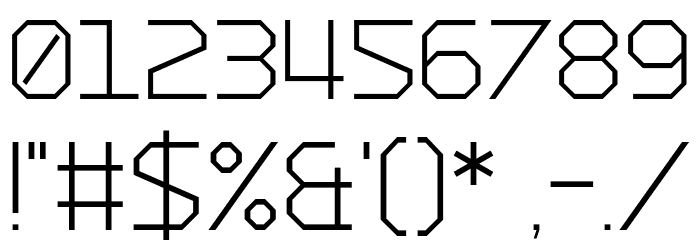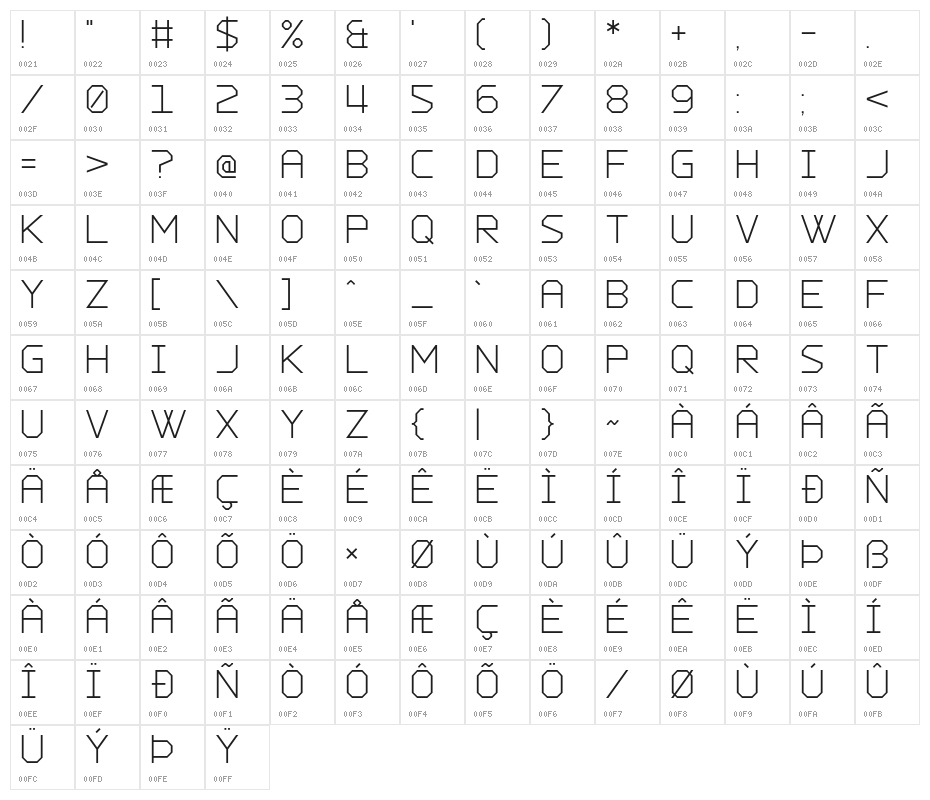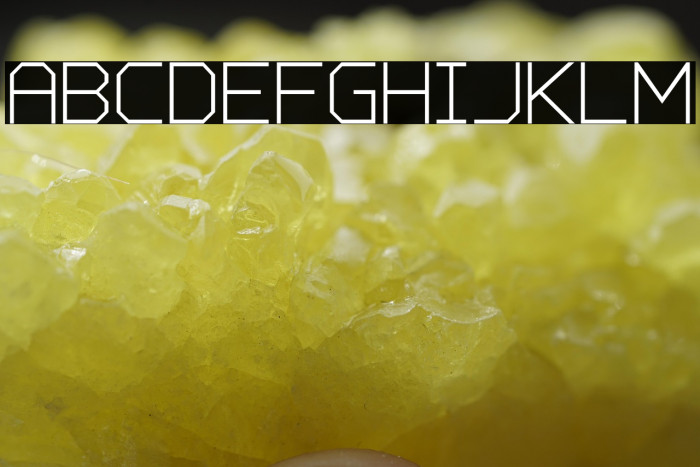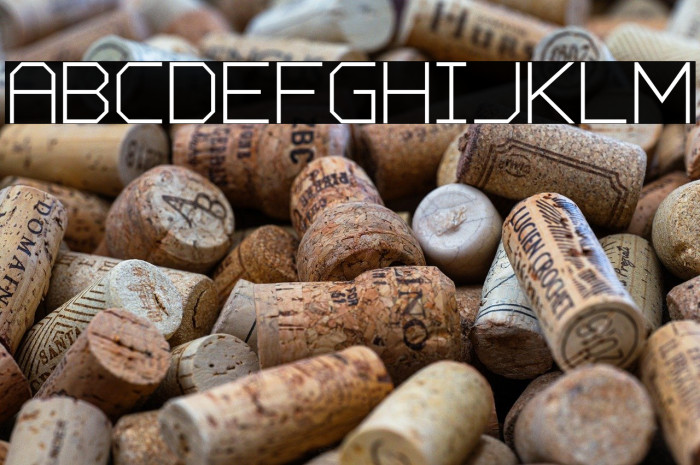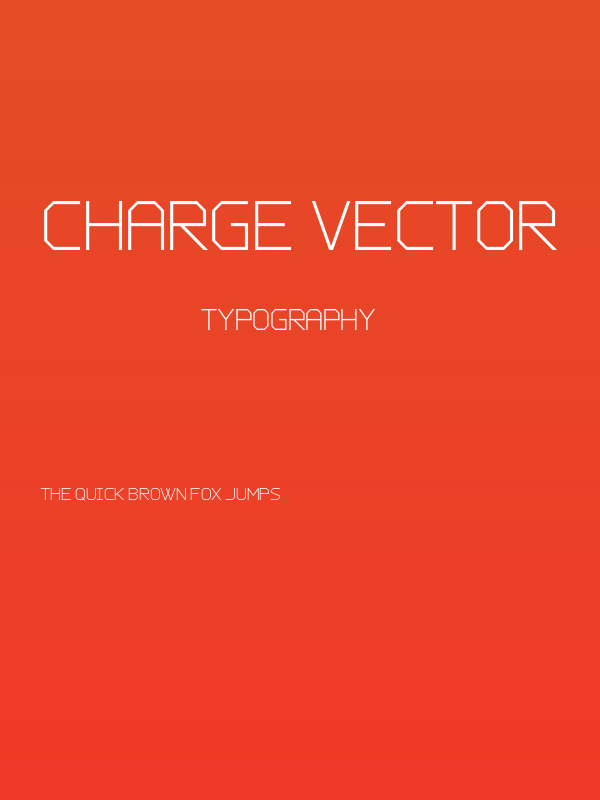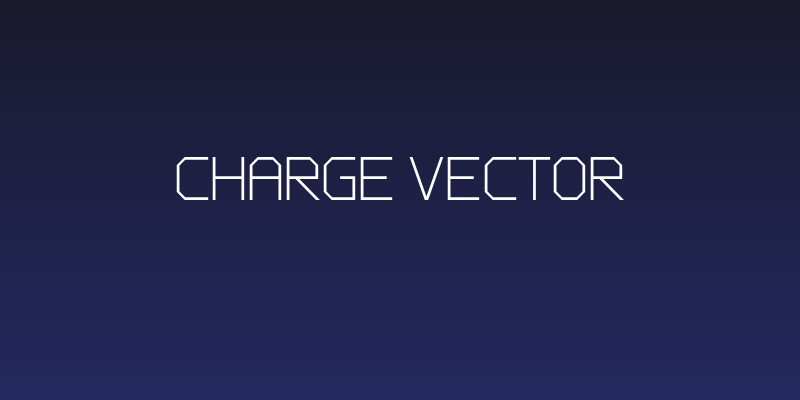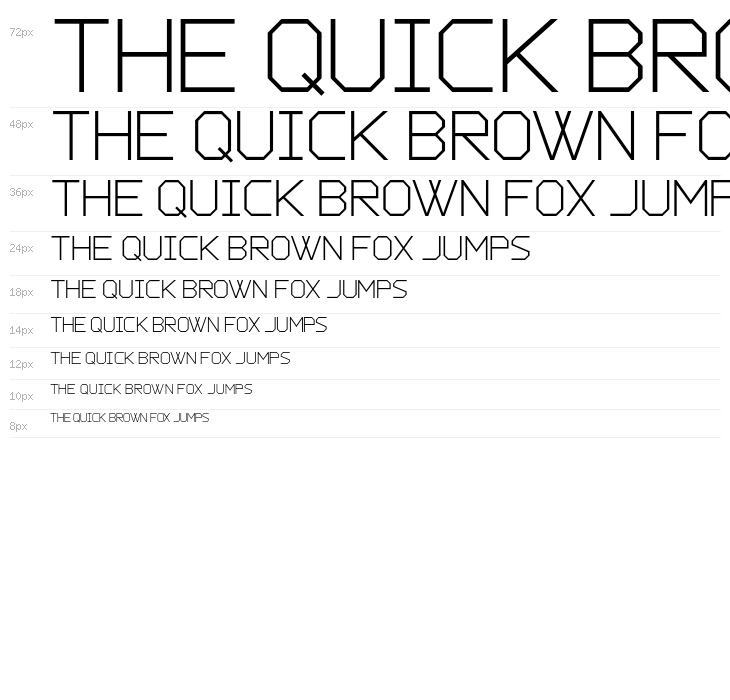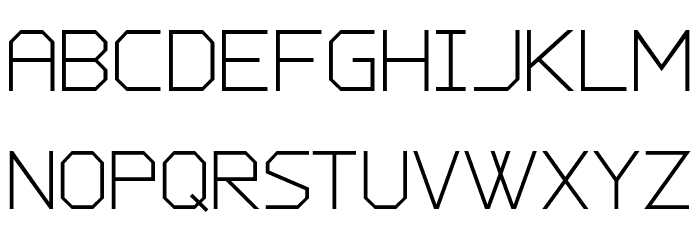
Charge Vector Font
Charge Vector Description
This font features a geometric and angular design, characterized by its sharp, straight lines and octagonal shapes. Each character is constructed with precision, giving it a futuristic and technical appearance. The uniformity in stroke width across all characters contributes to a cohesive and structured look. The uppercase and lowercase letters maintain a consistent style, with the lowercase mirroring the uppercase in form but slightly reduced in size. Numbers and special characters follow the same design principles, ensuring a harmonious overall aesthetic. This font's distinct style makes it stand out, ideal for projects requiring a modern and edgy feel.
| Proposed Projects | Ideal for technology branding, video game titles, futuristic posters, and digital interfaces. |